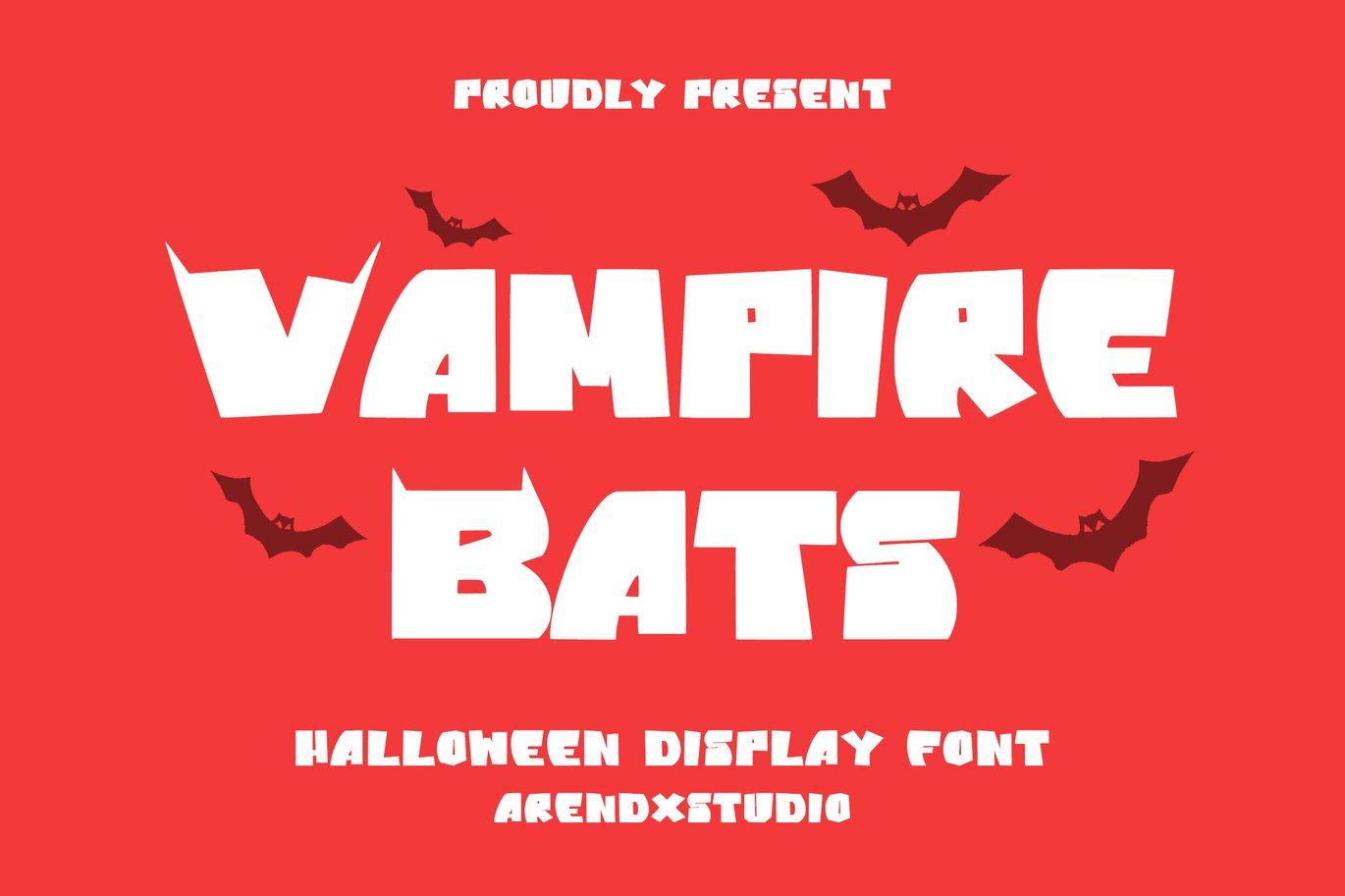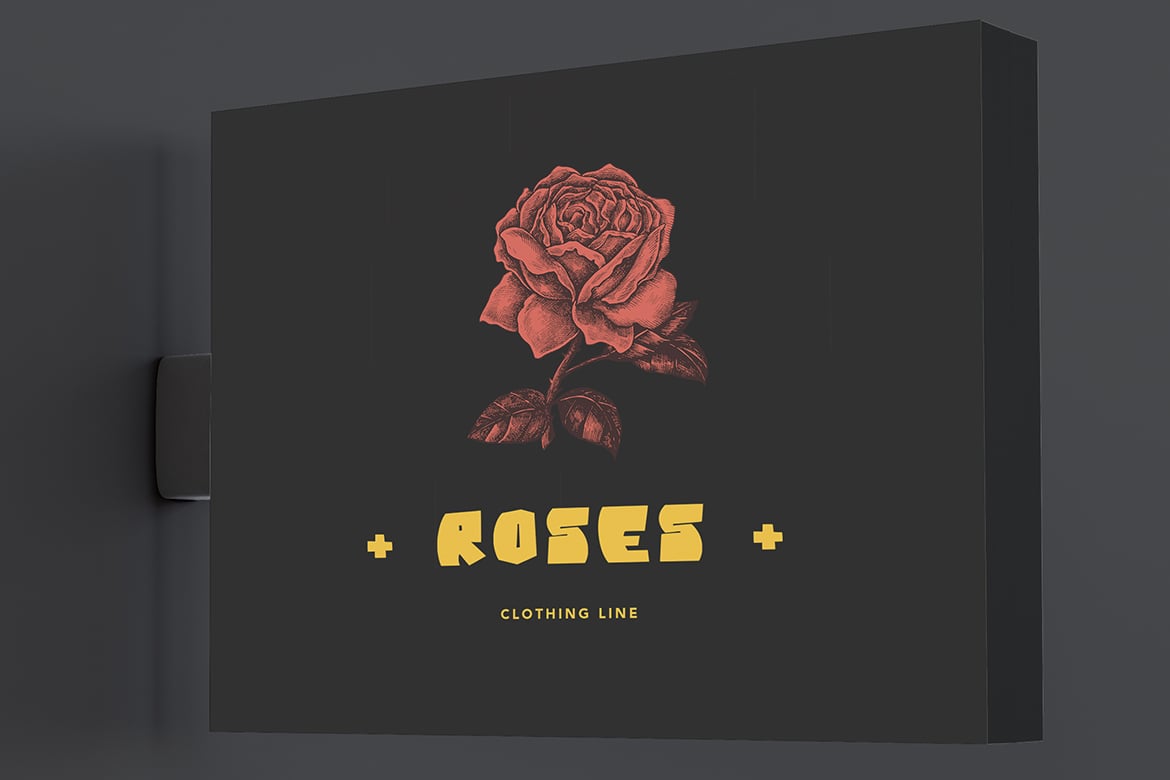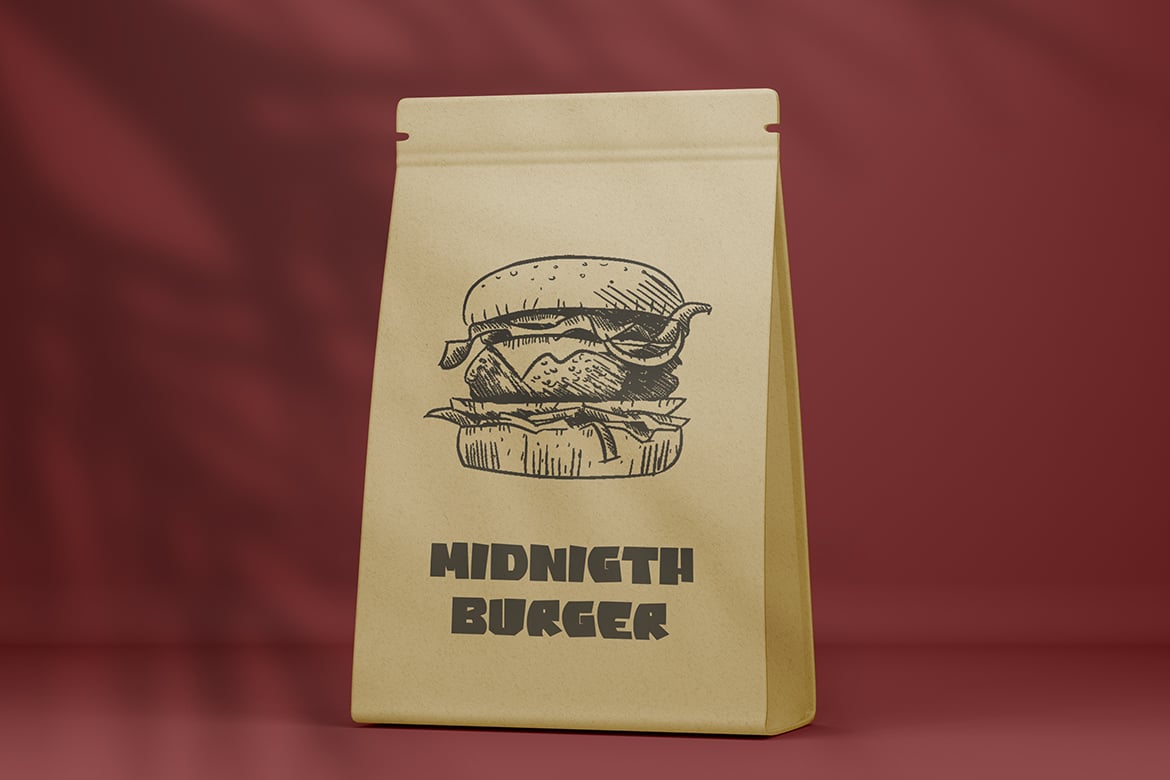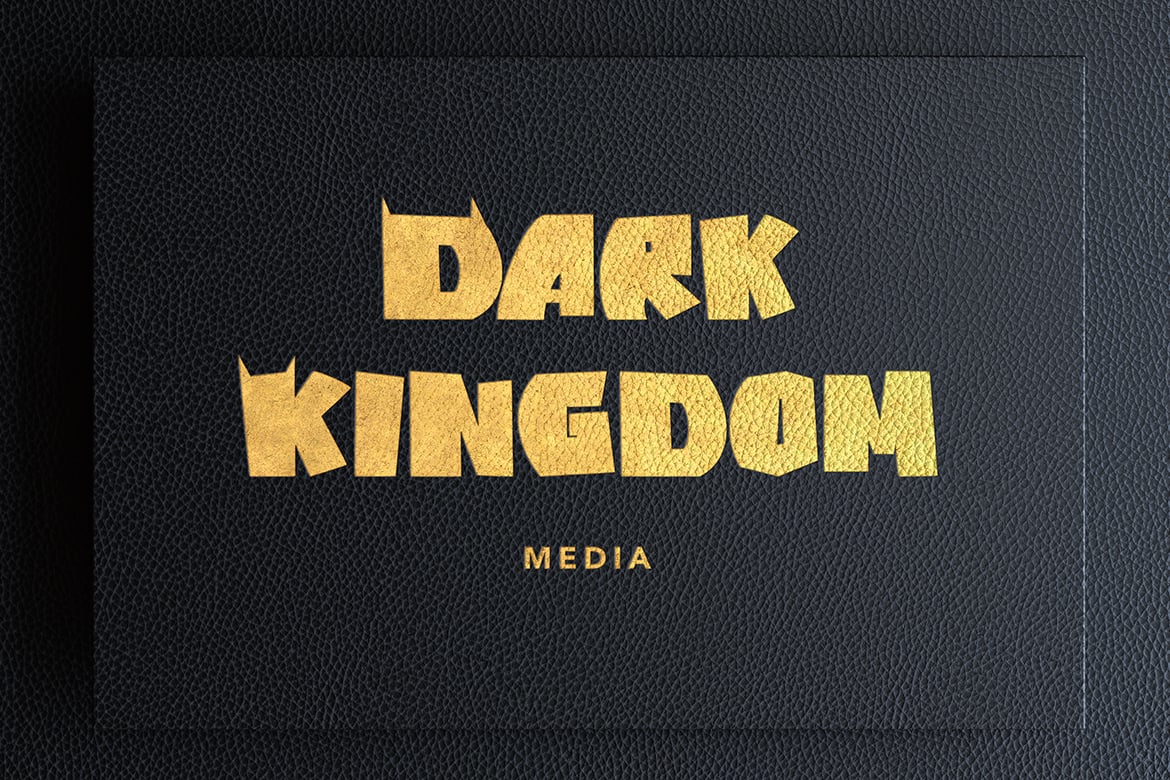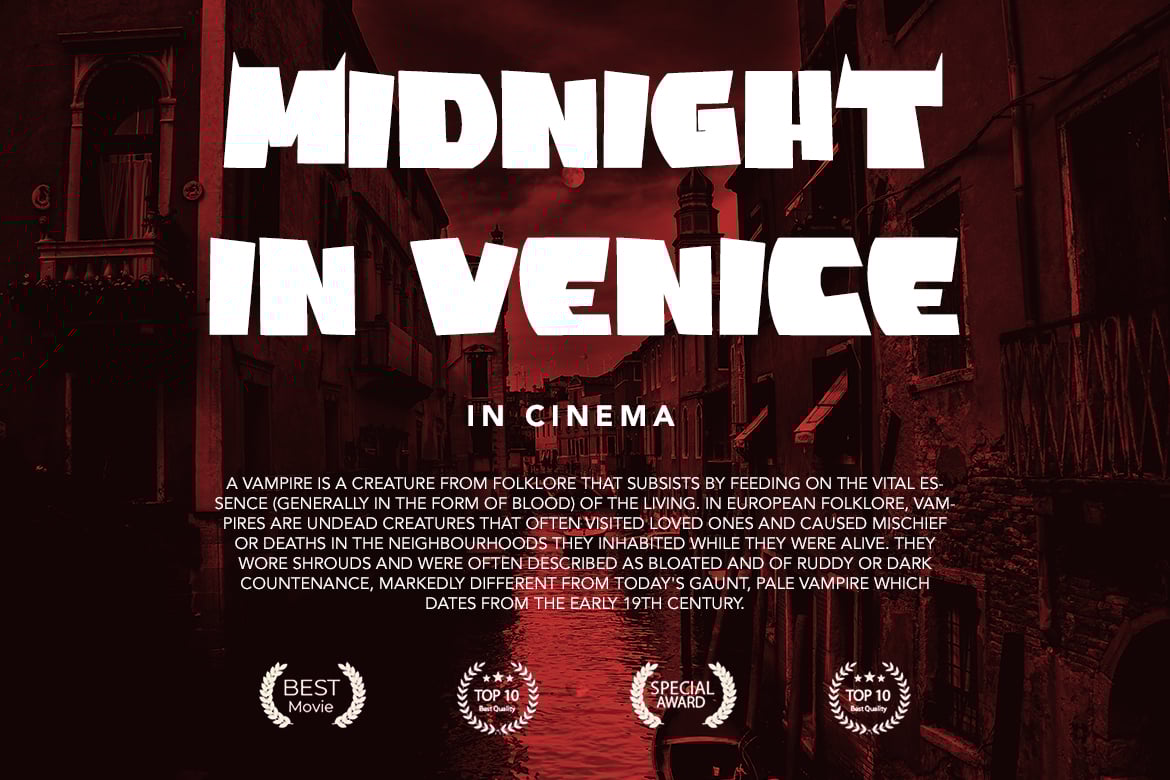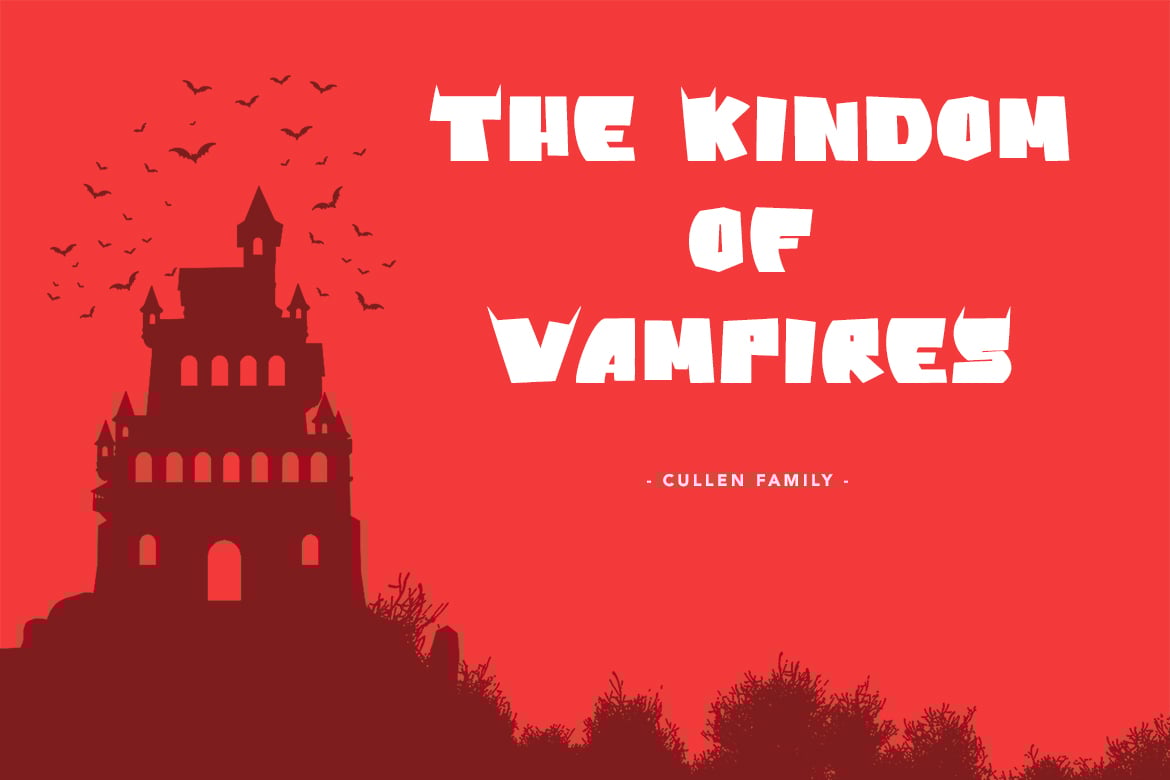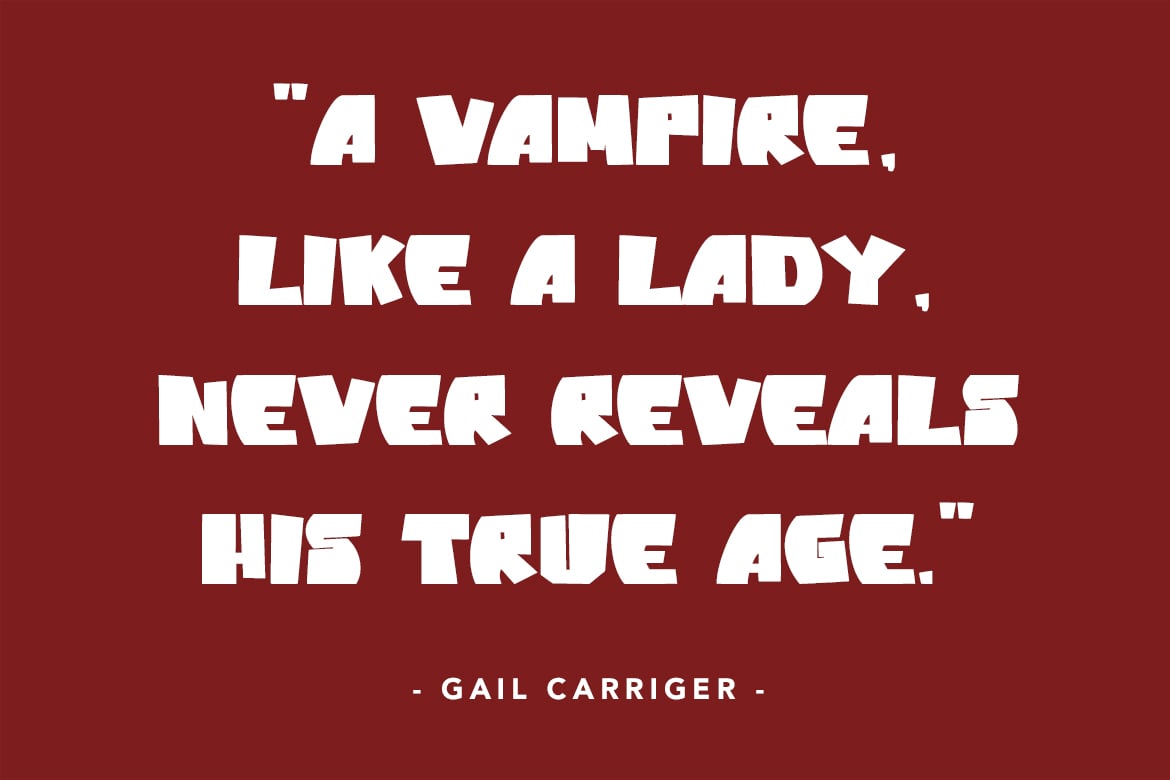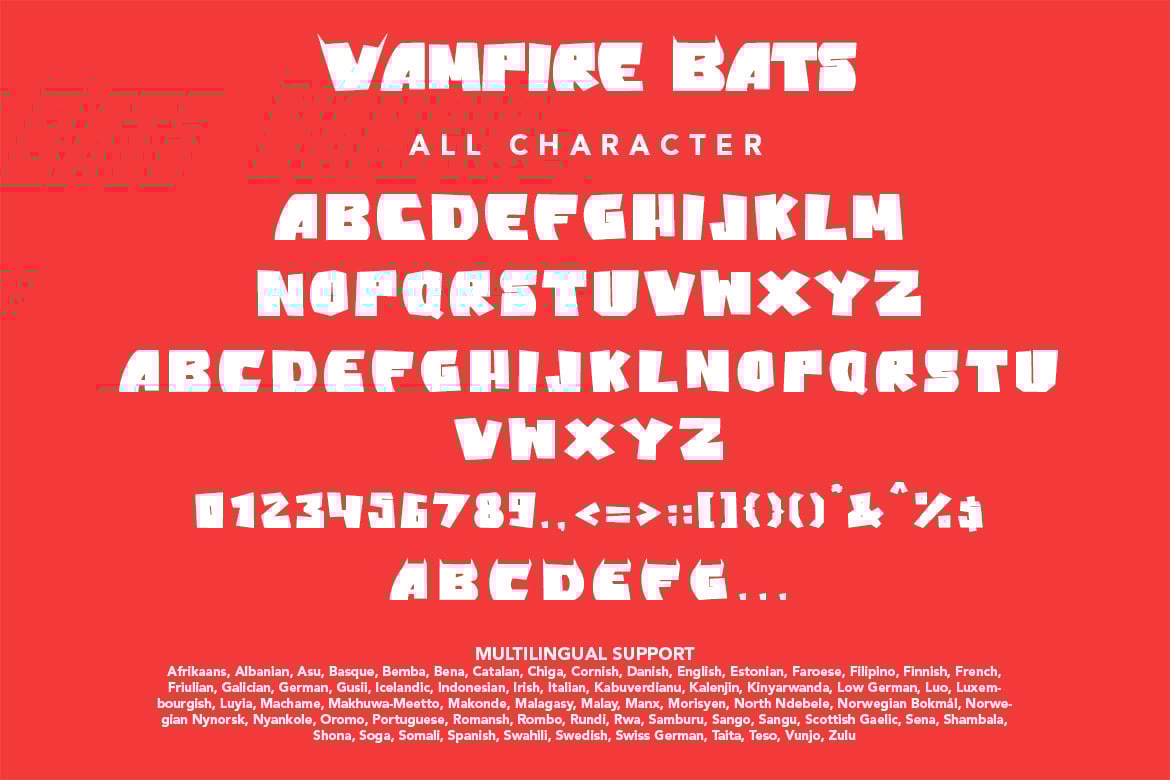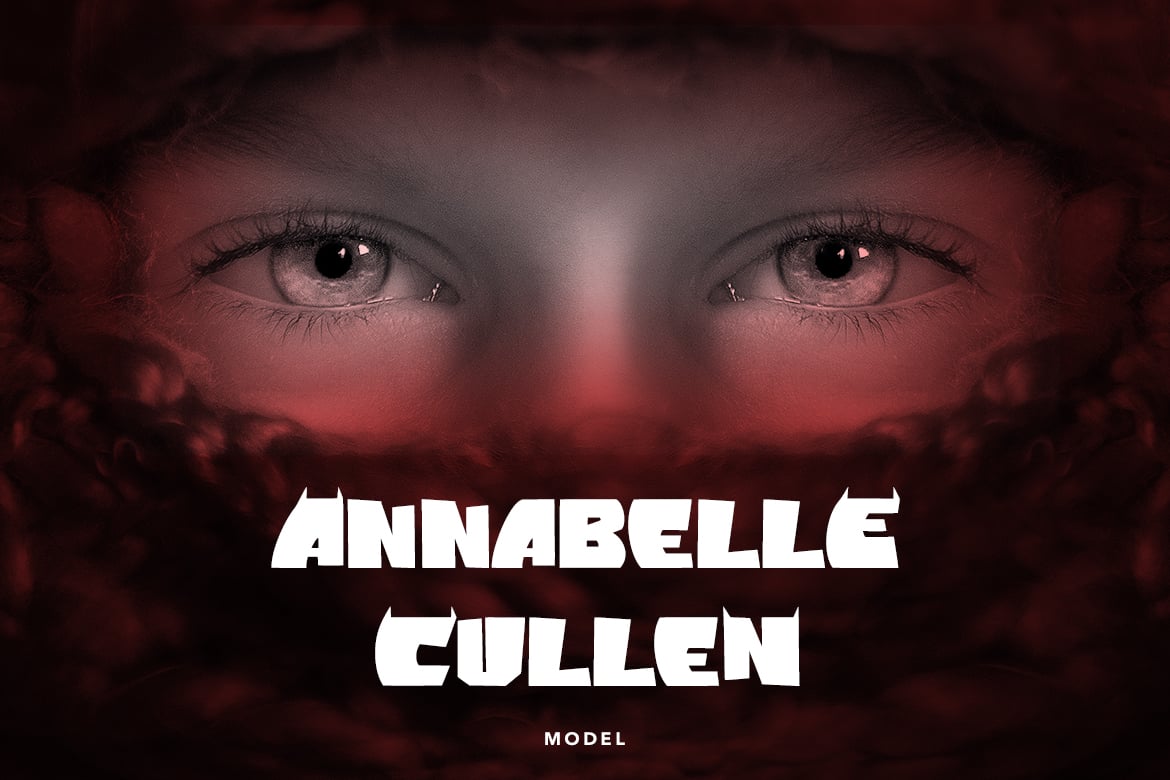
Vampire Bats – Halloween Display Font
Vampire Bats – Halloween Display Font is a display font that is inspired by horror and ghotic style because its shape is very unique and is perfect for any project that you will use with this theme.
Vampire Bats came with opentype features such stylistic alternates, stylistic sets & ligatures good for logotype, poster, badge, book cover, tshirt design, packaging and any more.